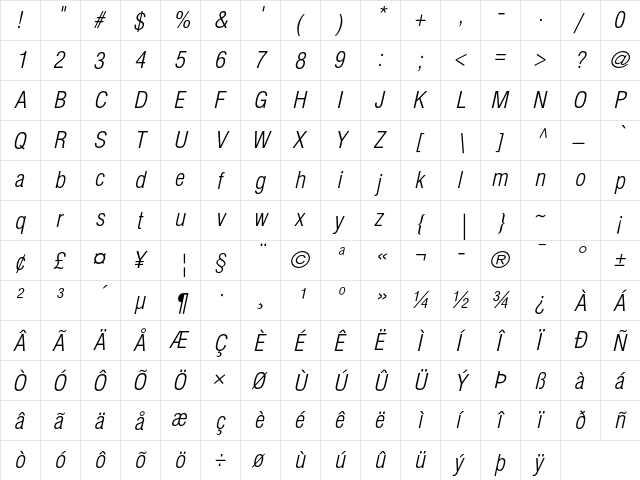
Helvetica LT Std Light Condensed Oblique Font Preview
| Designer | Max Miedinger |
Design Context for Helvetica LT Std Typeface
Helvetica LT Std offers clean, dependable letterforms without strong stylistic allegiance, making it a practical choice for designers who need flexibility. The dynamic lean of this cut emphasises speed and emphasis in any layout. The delicate stroke weight brings airiness and refinement to layouts. The condensed width makes it efficient for tight spaces without sacrificing legibility.
Pro Tip: Try Helvetica LT Std for annotation and caption copy alongside an upright companion — the contrast in angle creates a dynamic but ordered typographic system.